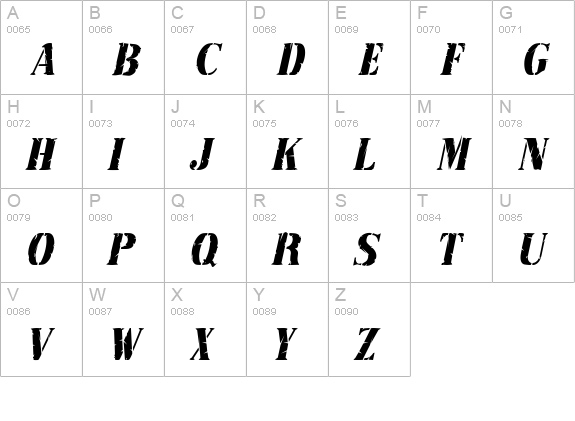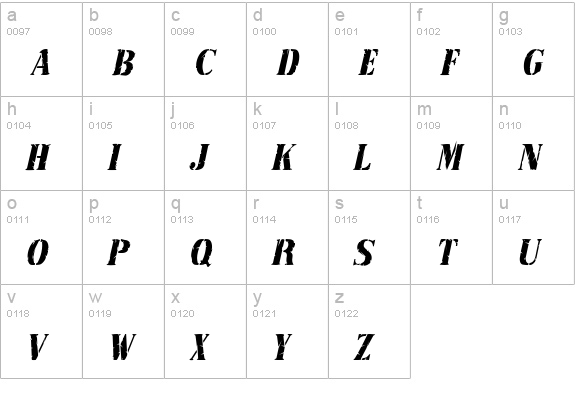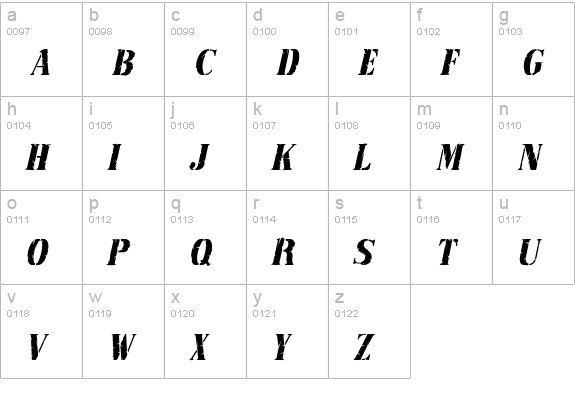
RubberStampCondensed Italic Font Details
RubberStampCondensed Italic is a distinctive, italic variant in the RubberStampCondensed typeface family \xE2\x80\x94 well suited to design and typography projects.
RubberStampCondensed Italic font is a unique and eye-catching typeface that exudes a sense of creativity and playfulness. Its condensed design adds a touch of modernity and elegance to any project, while the italic style brings a dynamic and energetic vibe. Perfect for adding a handmade and personalized feel to your designs, this font is a versatile choice for various creative projects. What's even better is that RubberStampCondensed Italic font is available for free download at FontsMarket.com. This means you can easily access this stylish and distinct typeface to enhance your designs without any cost. So why wait? Add a touch of flair to your projects with RubberStampCondensed Italic font today!